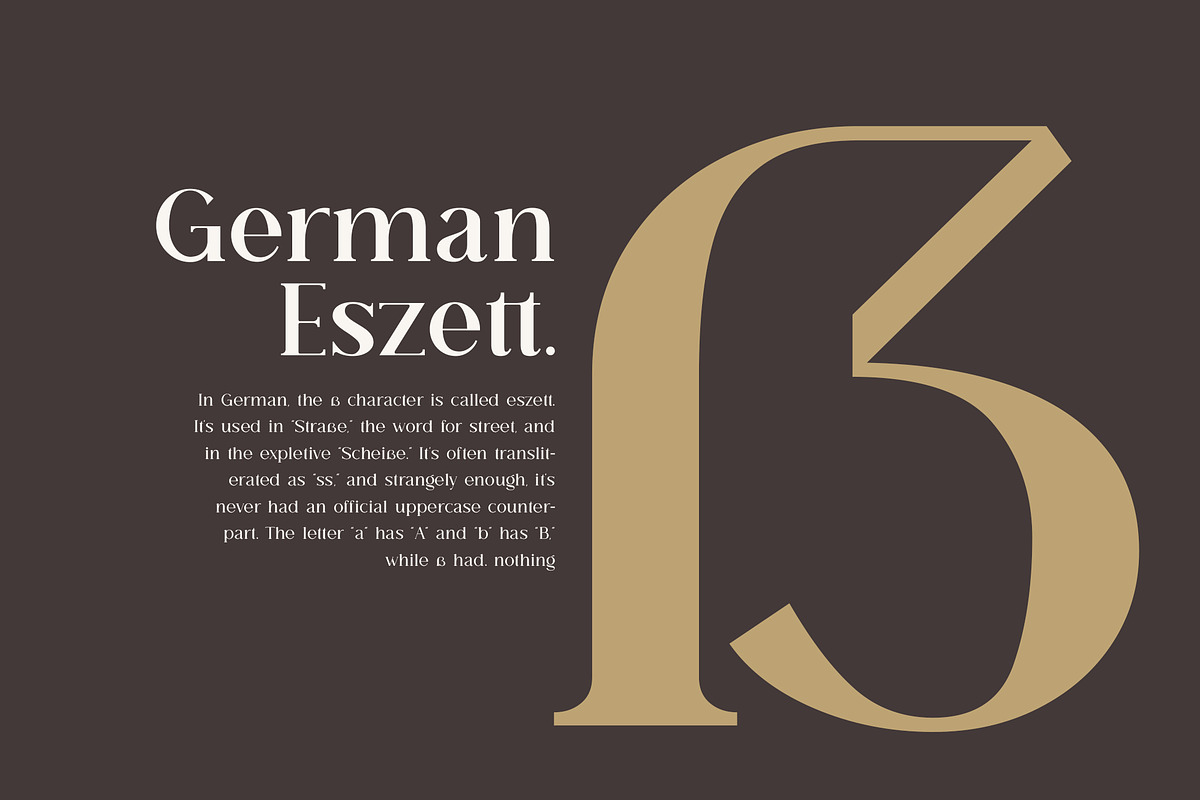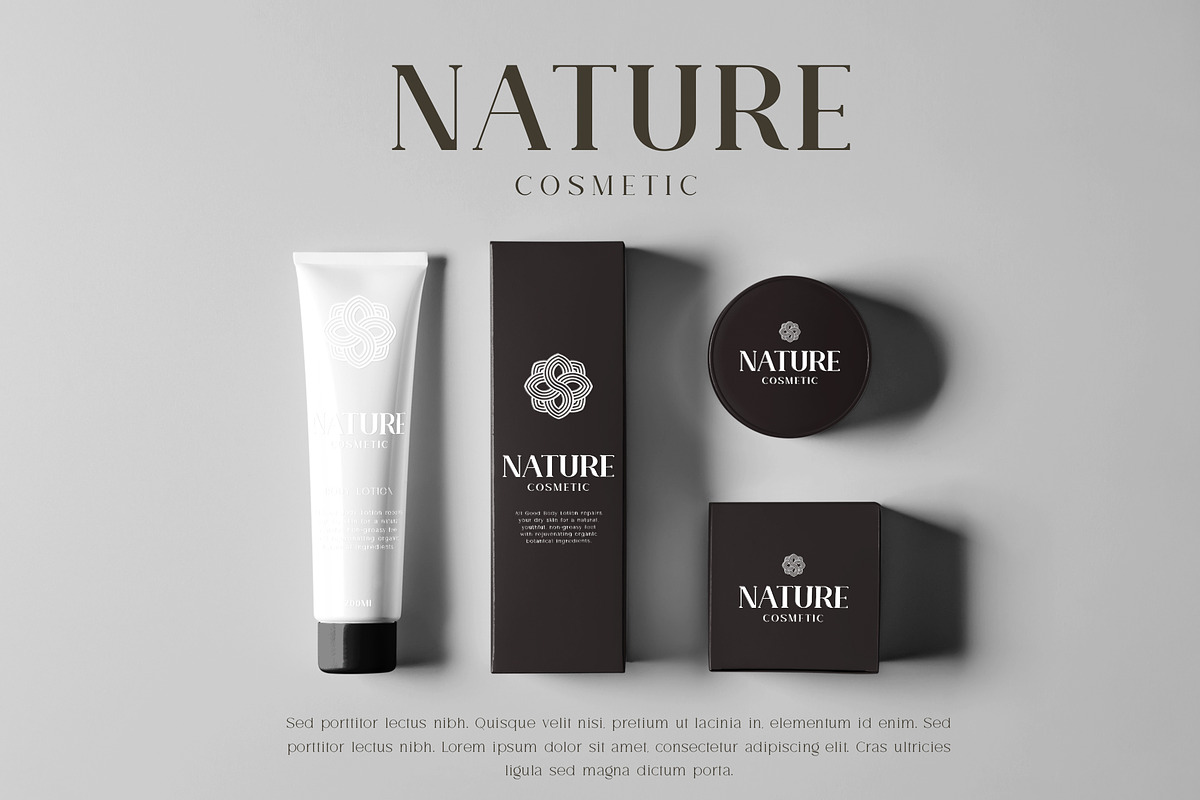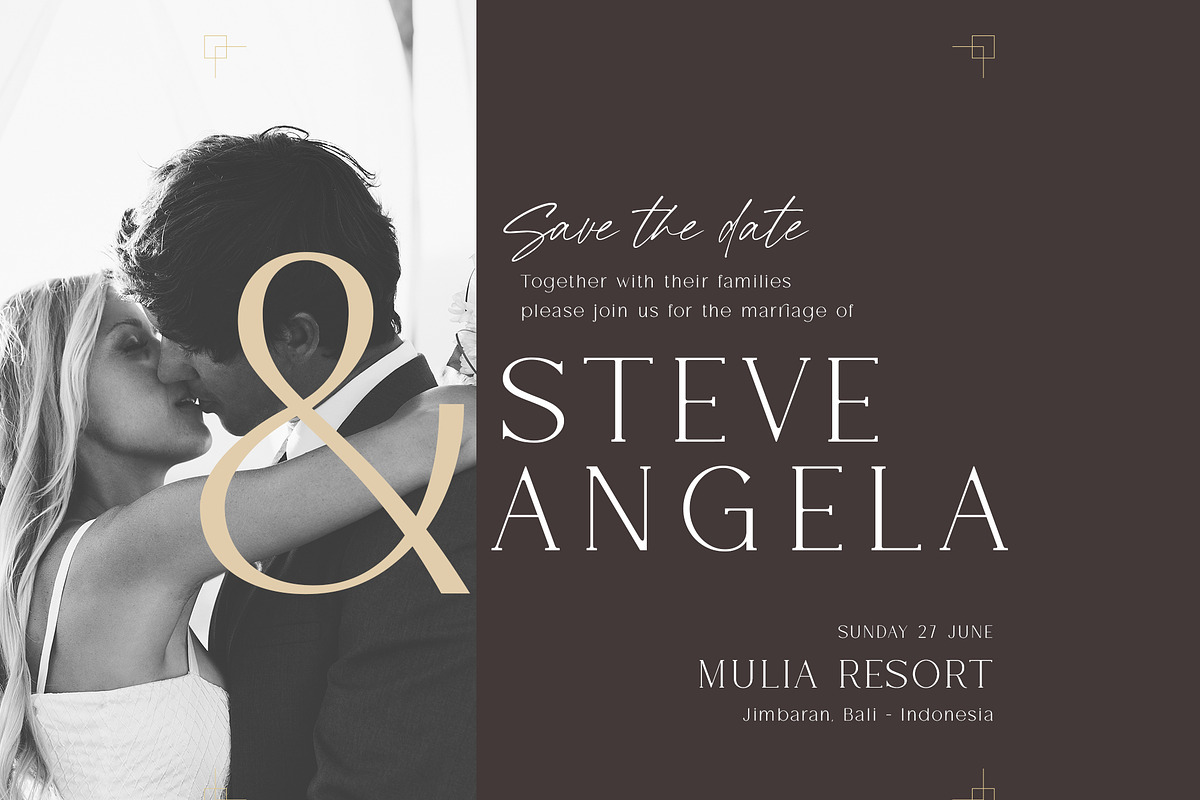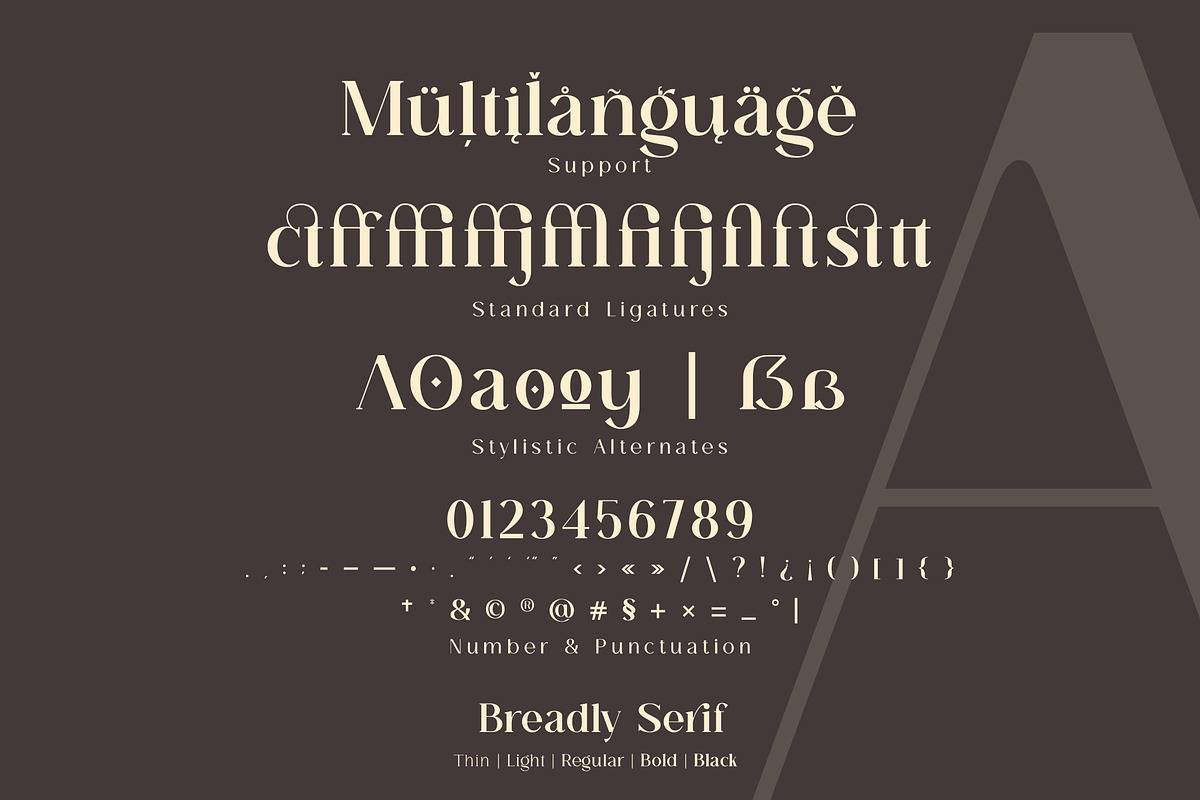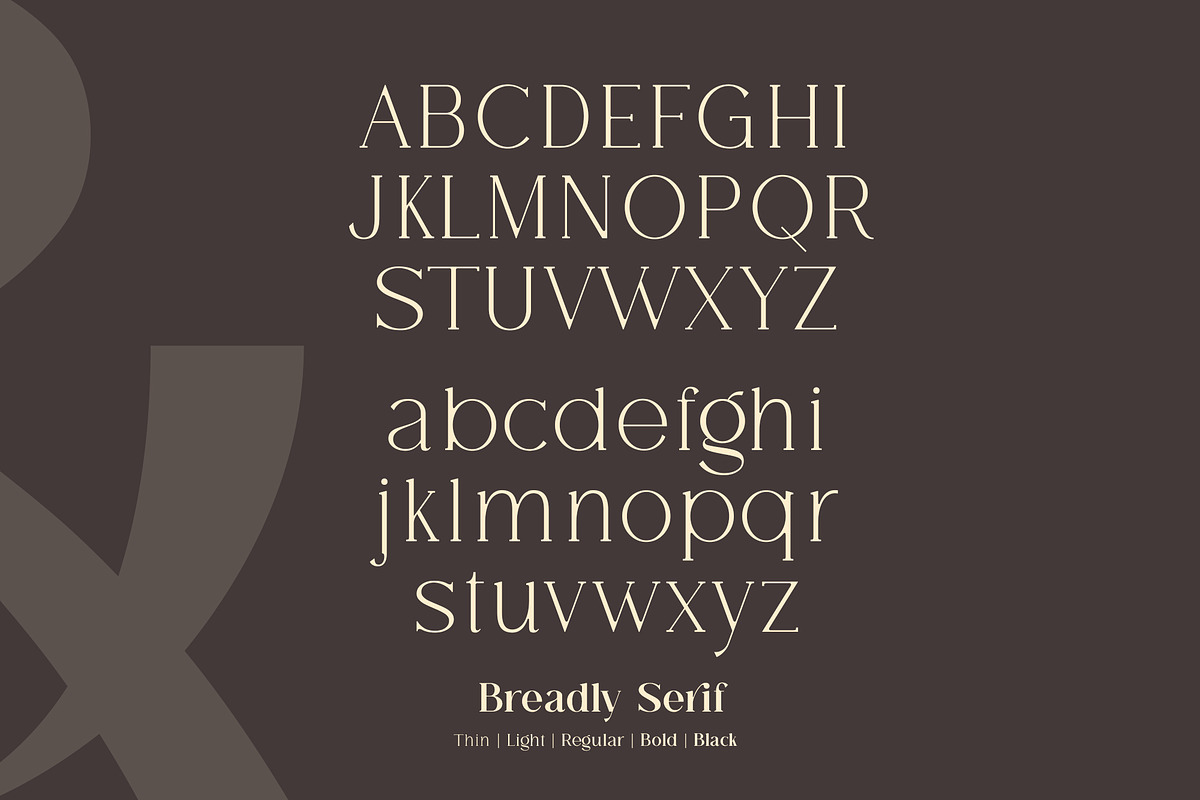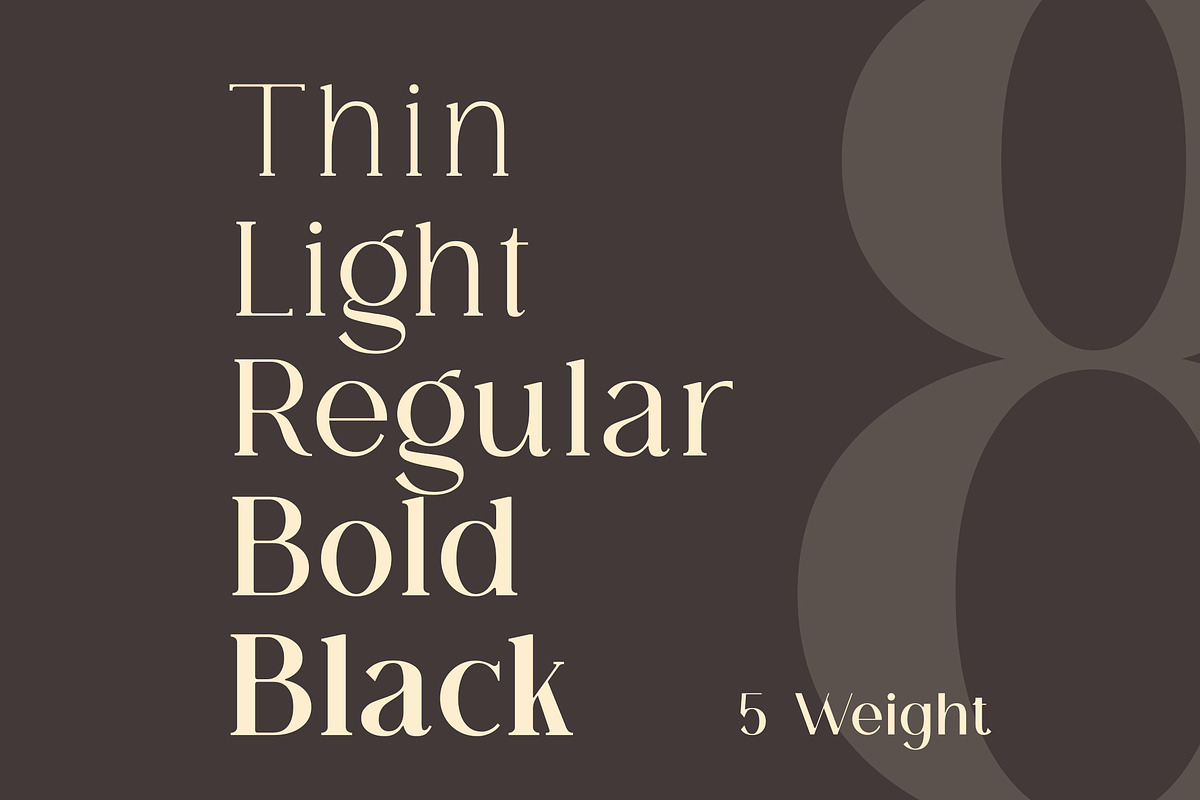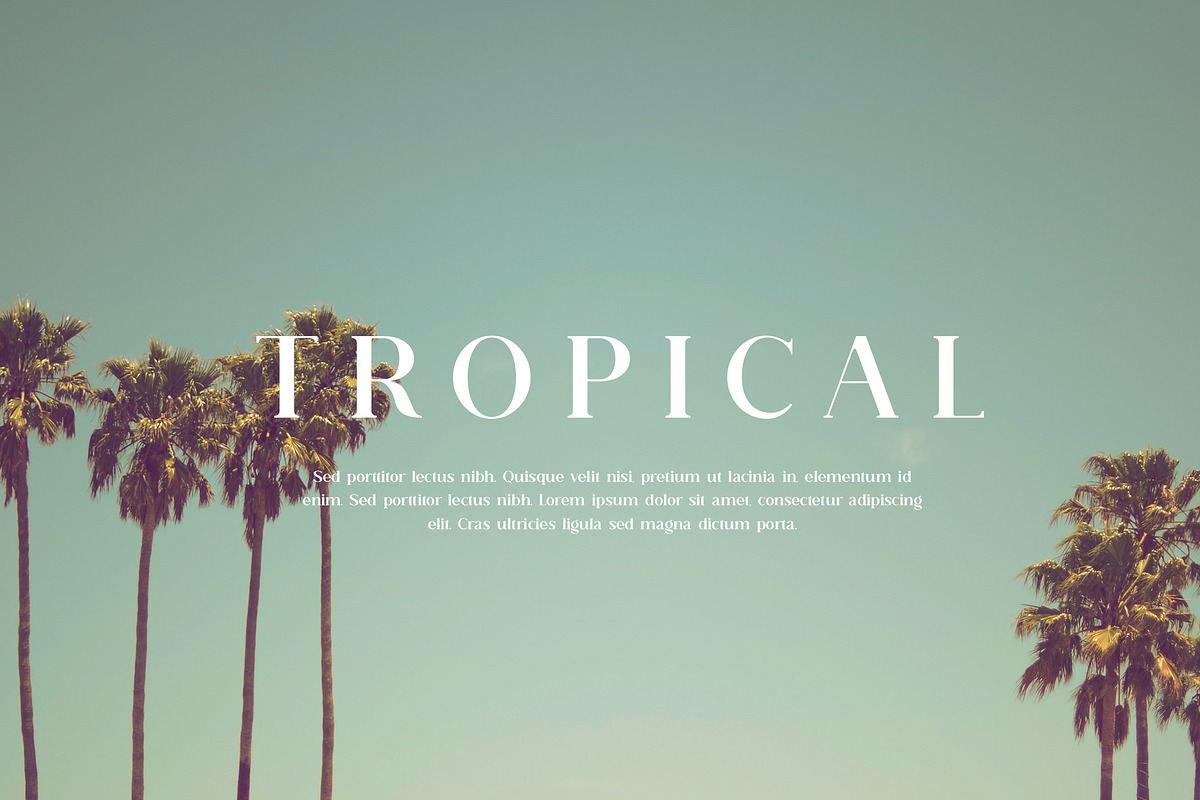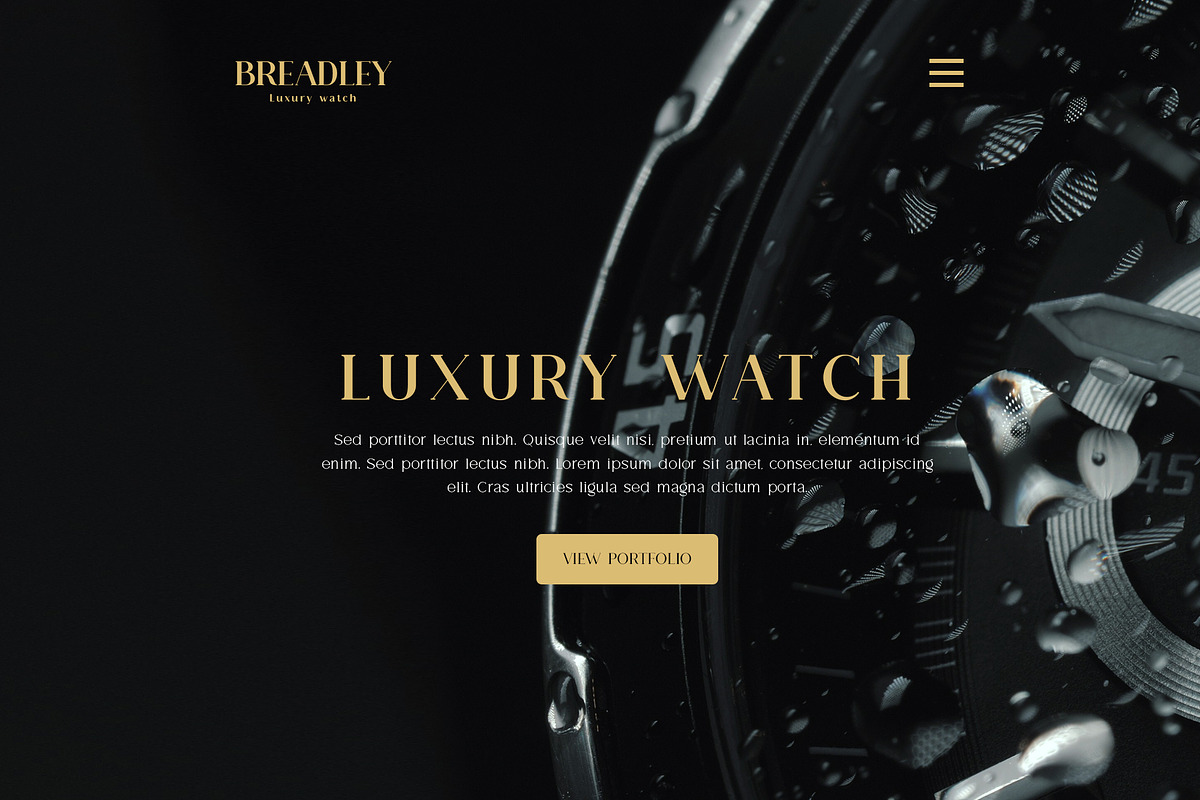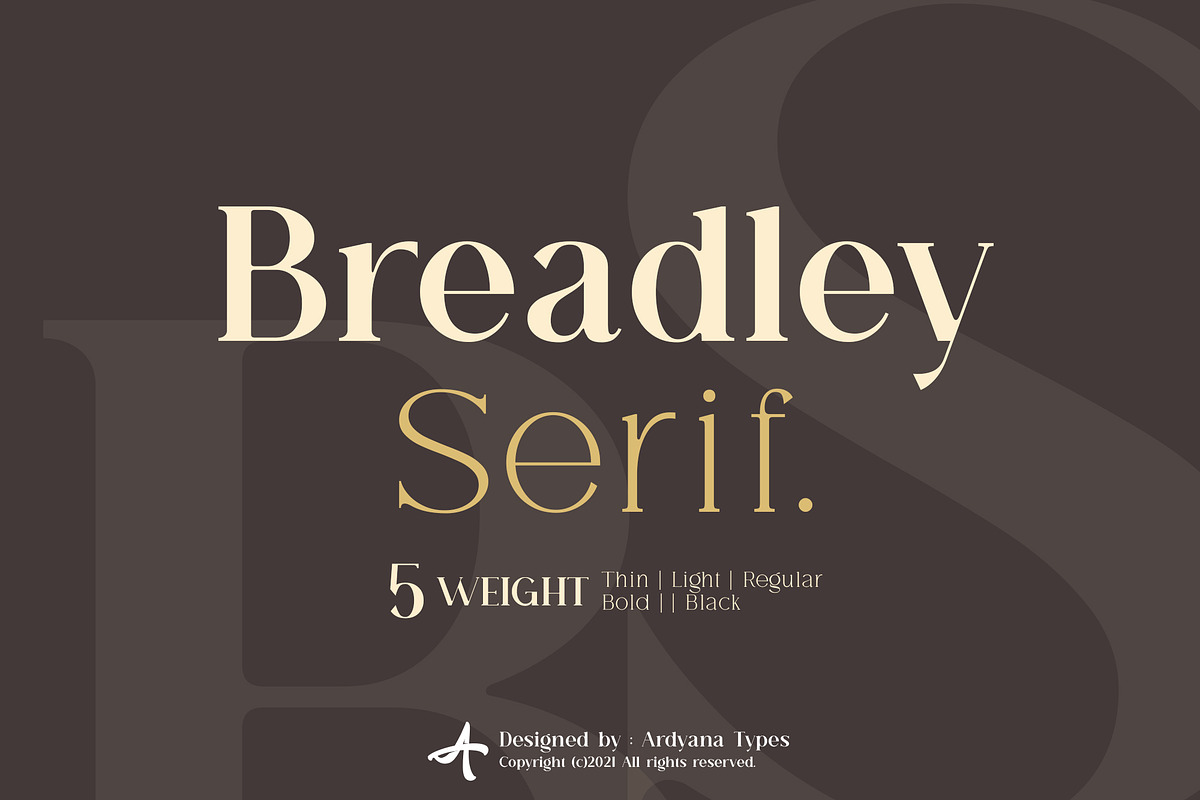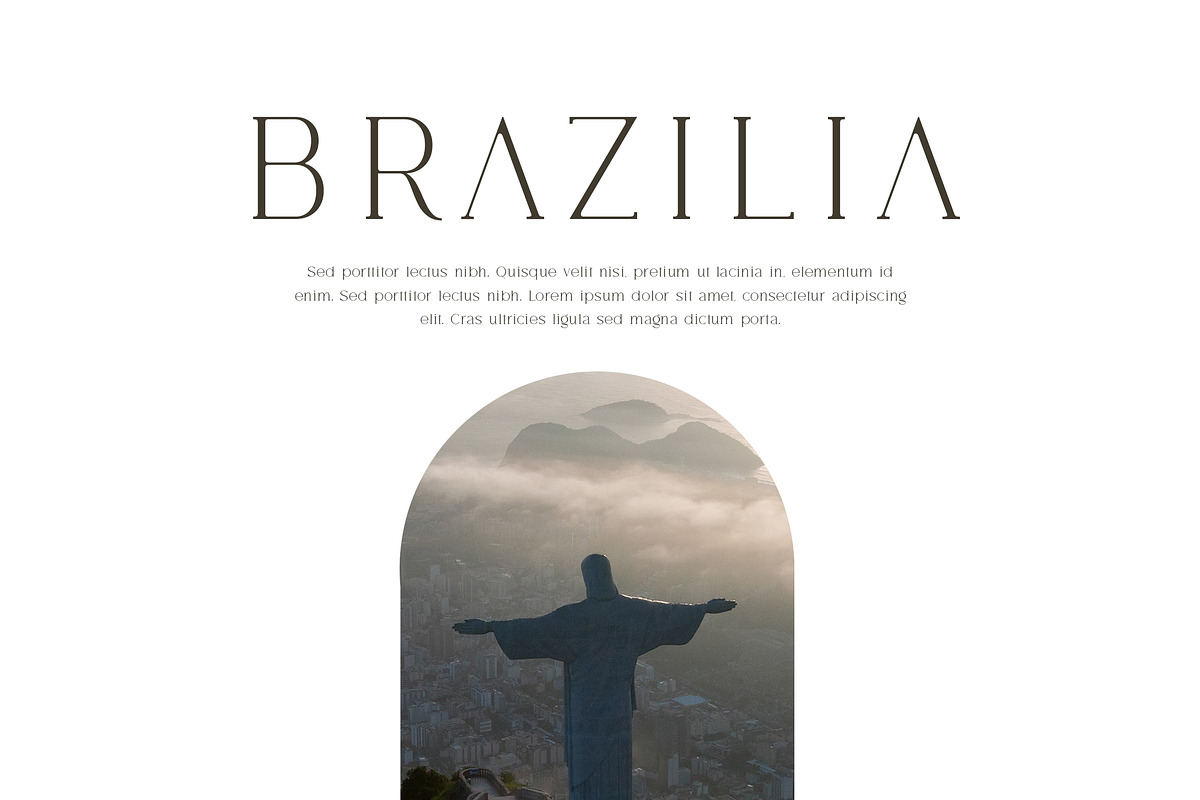
Breadley Serif
Breadley Serif It was a continuation version of the previous one (Breadley Sans) that come up with Serif type look, surely including small decorative on the ends of some of the strokes that make it more expressive. Still stunning great with an elegant look and stands strongly on its own as a heading and brand logo.
This Serif version of BREADLEY fancier within sexy touch for business utilities use like business card, name sign, uniform as brand elevation, and many more. This serif BRADLEY typeface, obviously fit to embossed as an exclusive brand tag or even decorating your enormous office corner.
You can view all of the available characters in the screenshots above, and you can try out the brand new BRADLEY SERIF now for any design matter. Breadley Serif also has five weights, plus an extra superbold weight, Ligatures, small caps, old-style numerals, and other OpenType features Latin and multilingual support